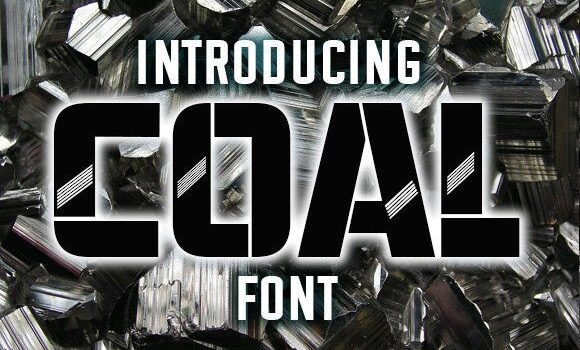
Coal Font – Free Download Introduction to Coal Font Coal is awesome decor typeface that will fit any of Your designs. 📸 Preview Gallery 2 images 📌 Product Name Coal Font 👤 Author vladimirnikolic 📂 Category Explore ⬇️ Download Coal